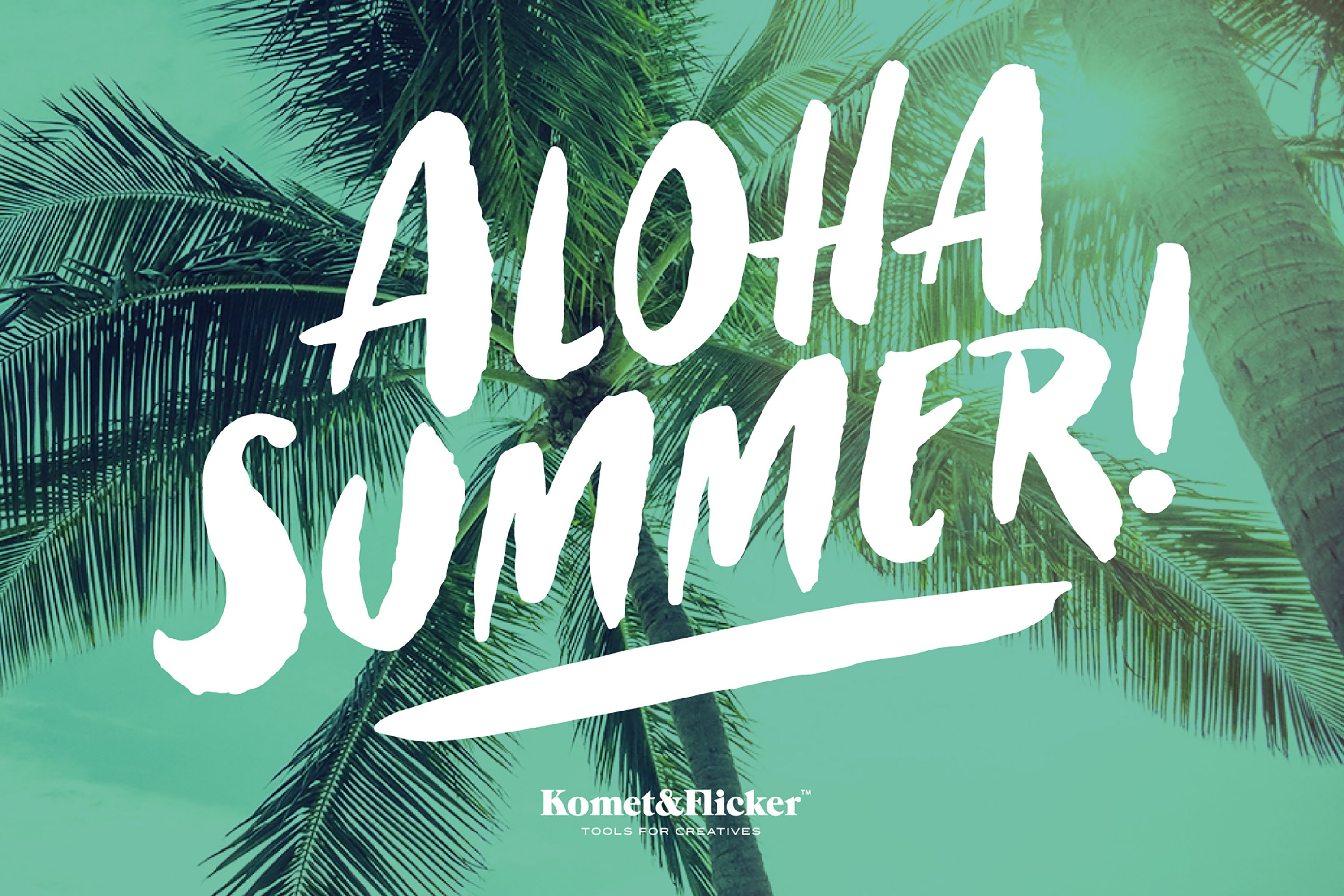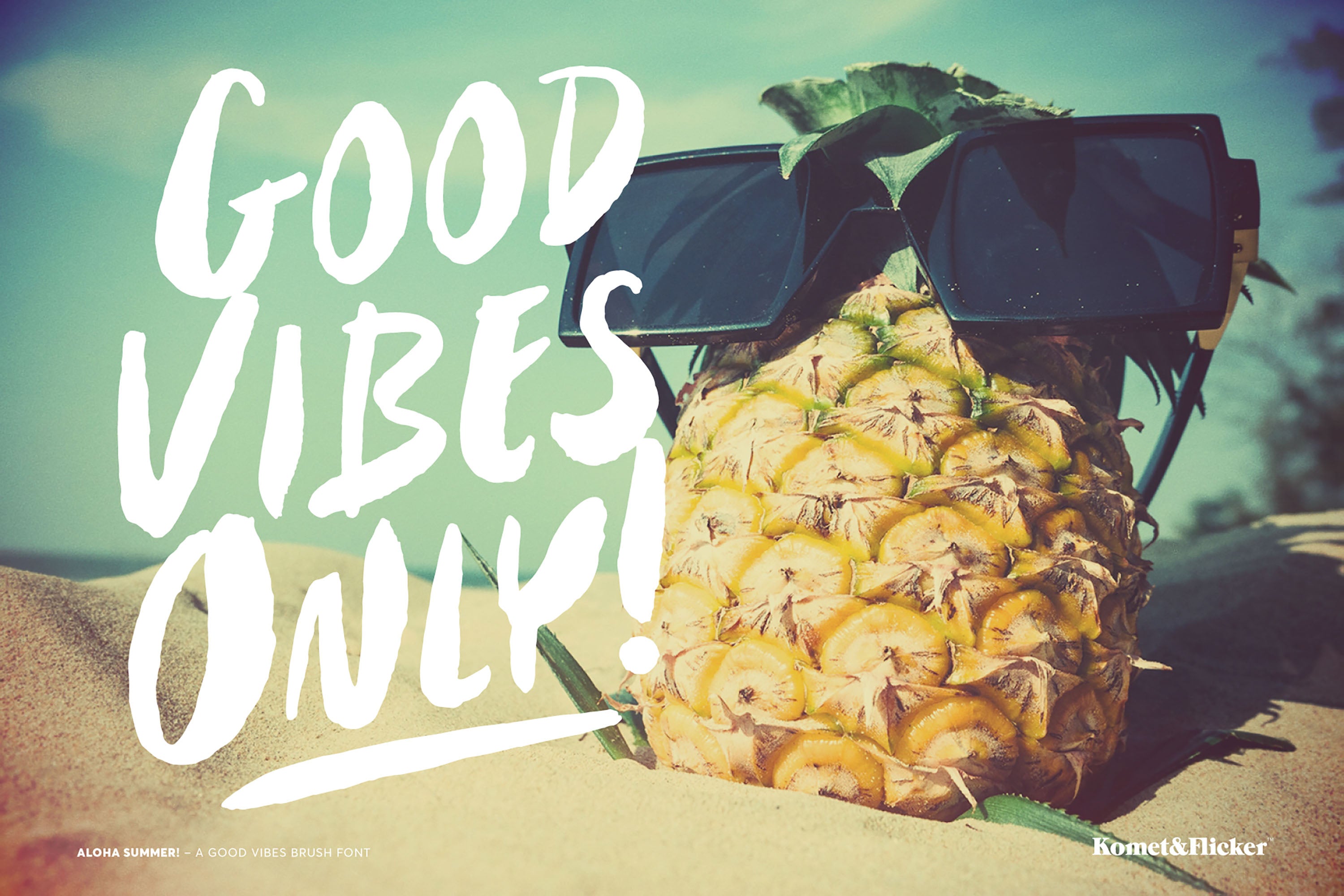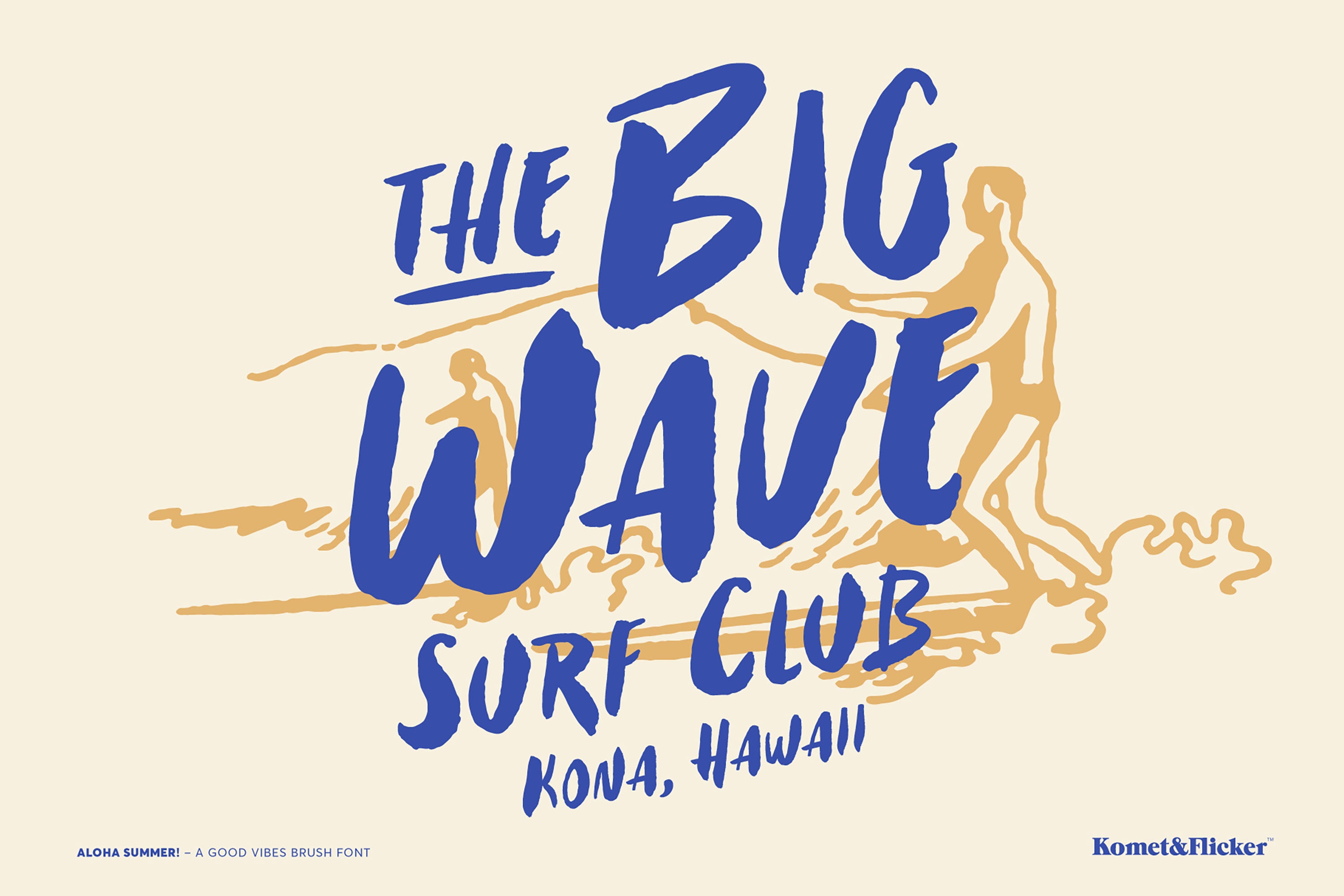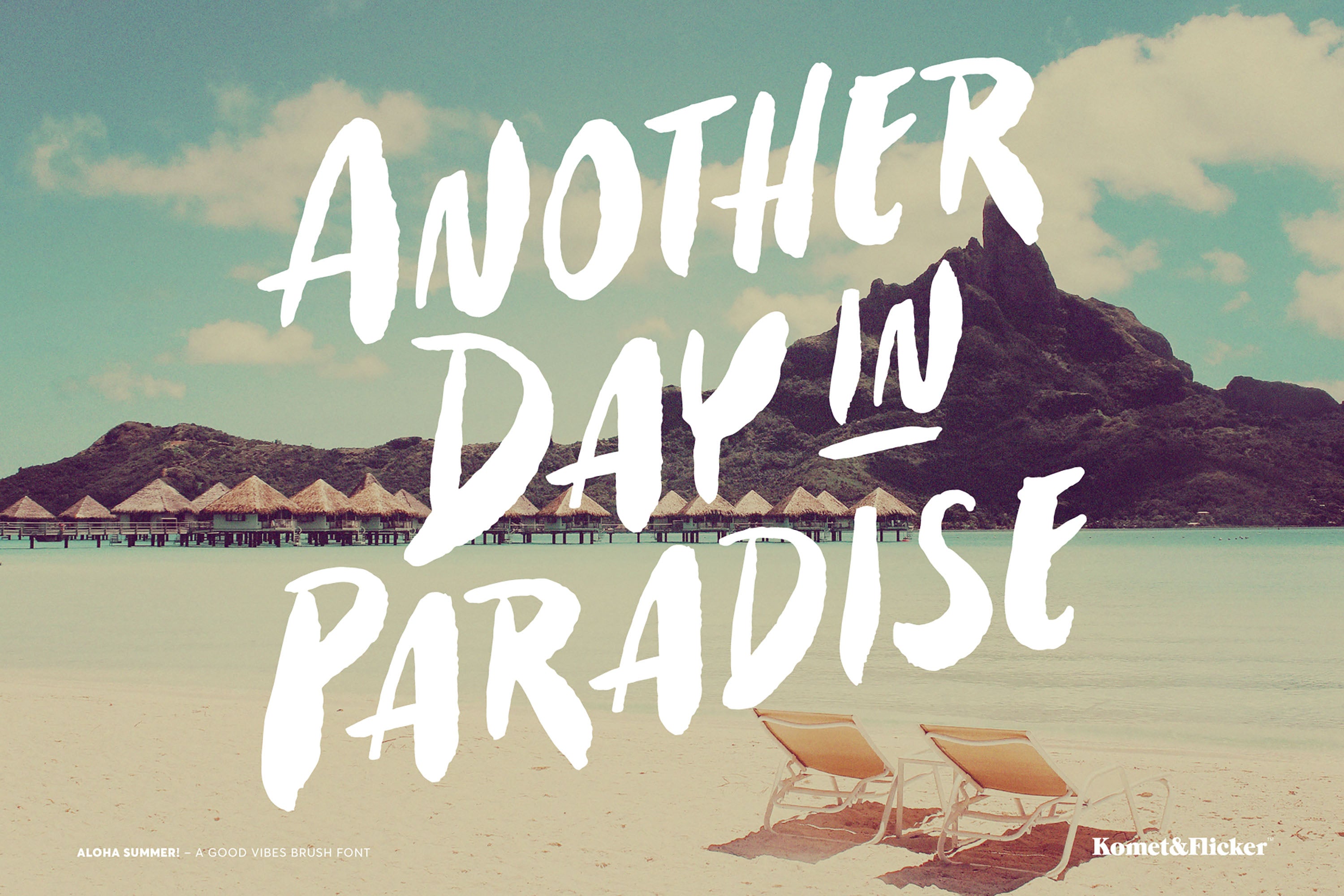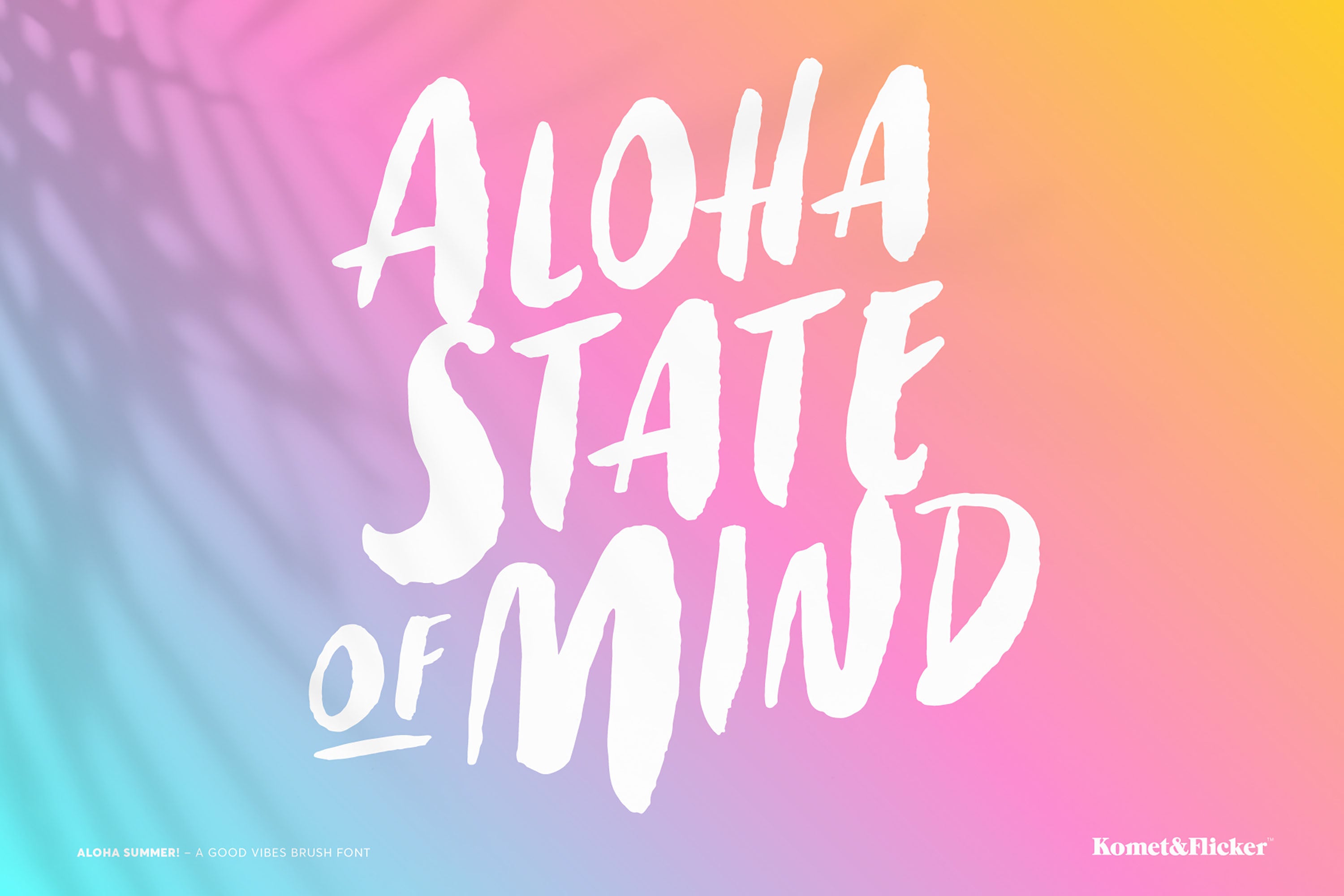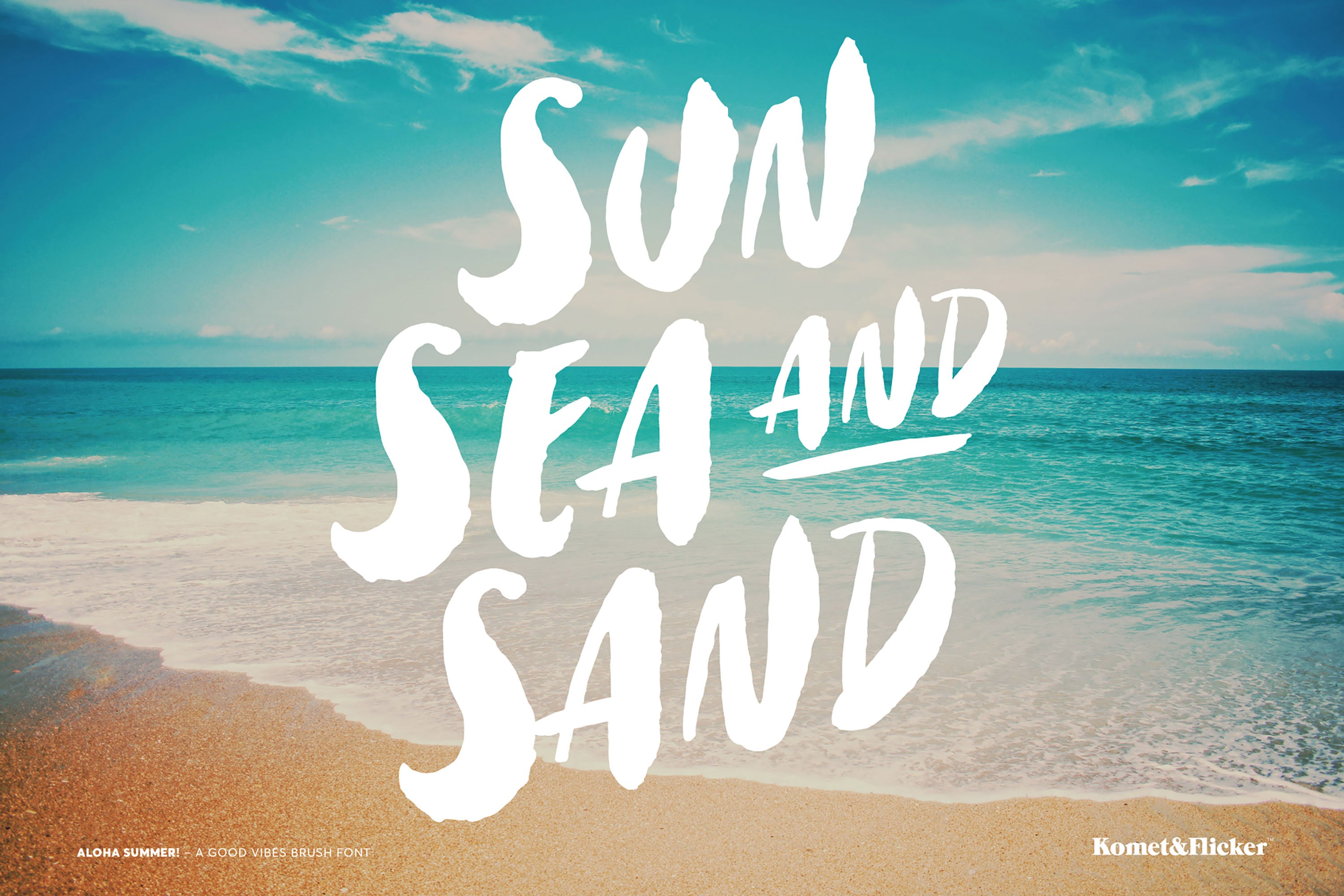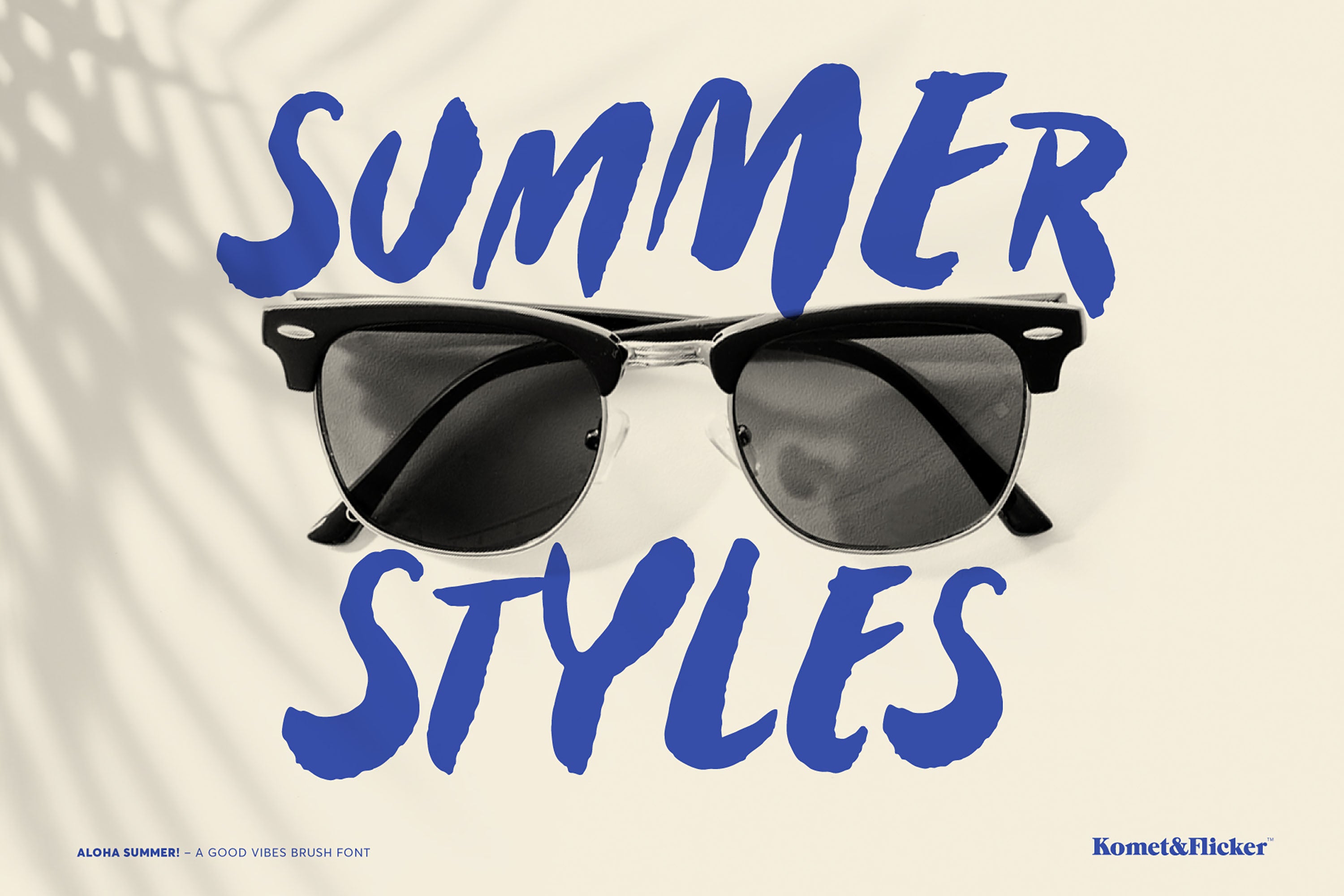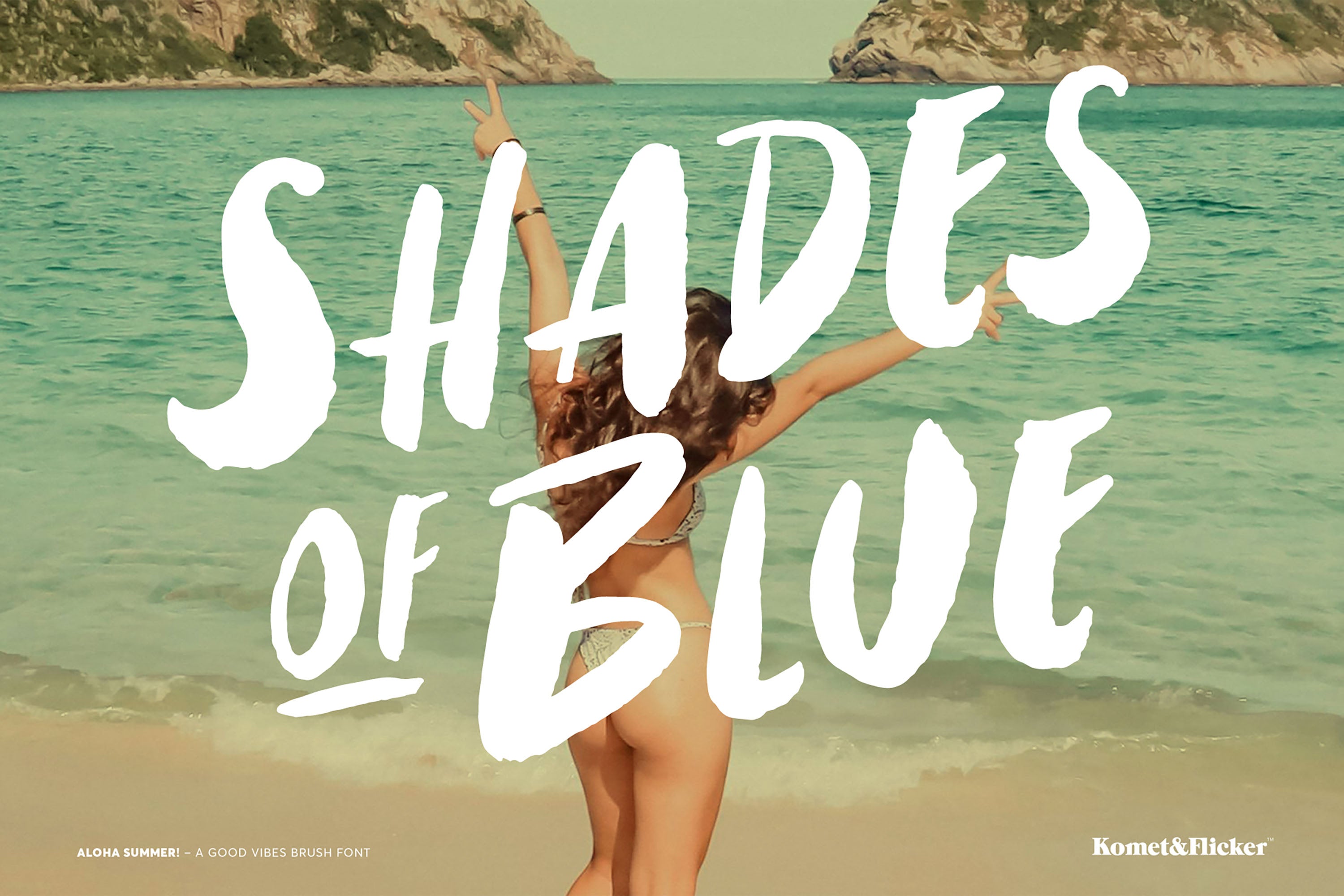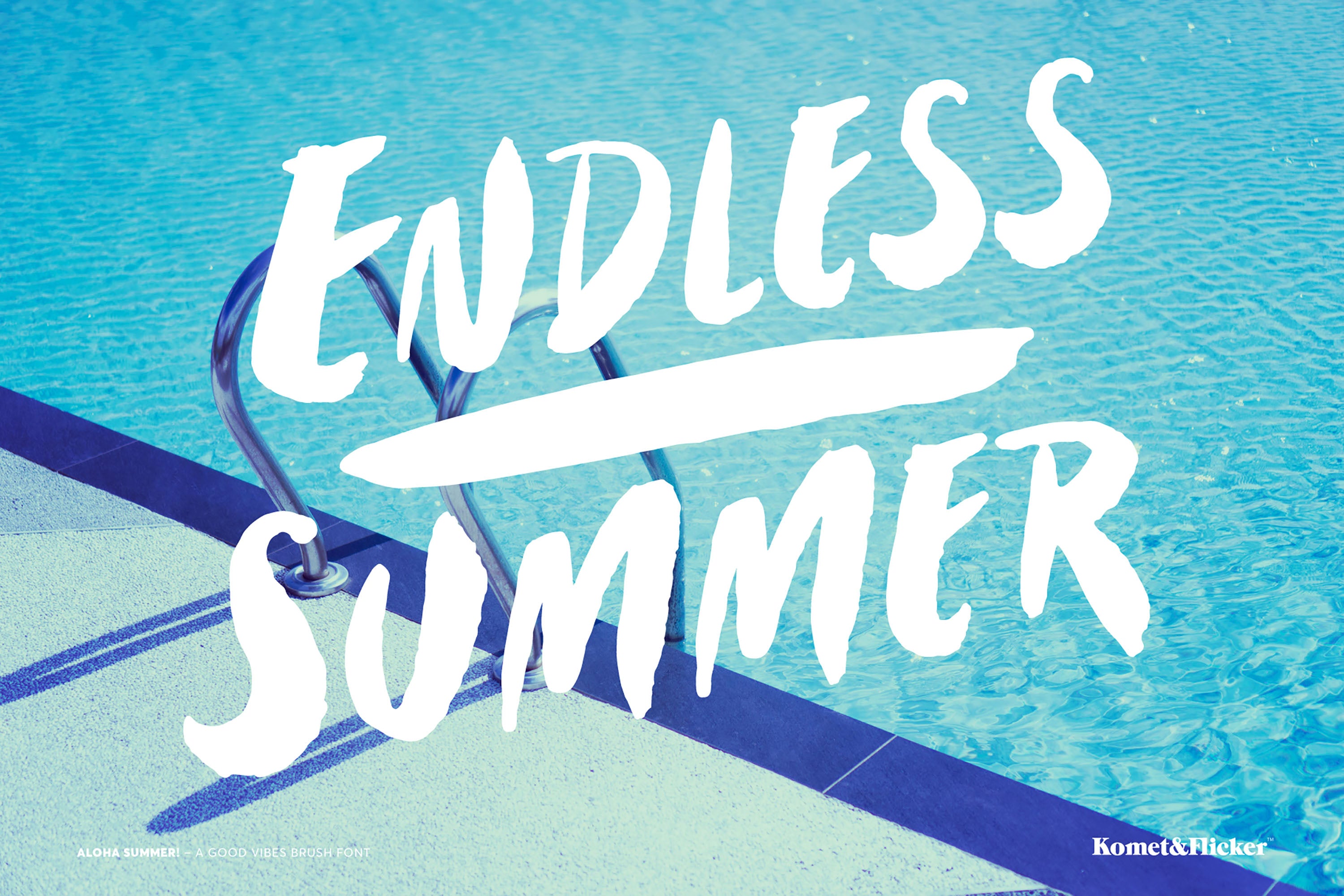
Aloha Summer! from Komet & Flicker - A Beach Script Font
GOOD VIBES ONLY!
Surf's up with this hand drawn brush font that effortlessly captures the laid-back vibe of lazy beach days and sun-kissed afternoons. Whether you're creating beach-themed invitations, surf-inspired posters, or simply adding a touch of tropical charm to your branding, this font is your go-to choice for infusing that unmistakable beachside vibe.
This font's lowercase letters are a second render of each glyph and not simply duplicates. Included are 10 common connector words. The icon font set comes with 24 hand drawn sun and surf themed icons.